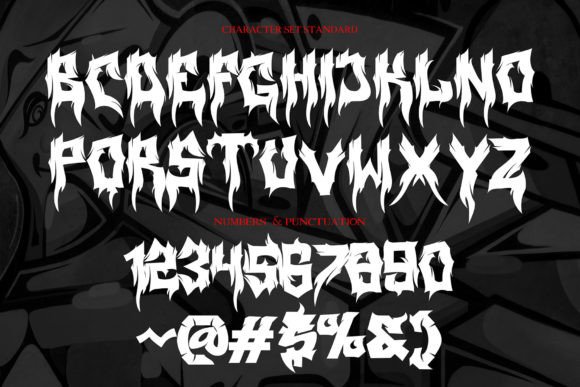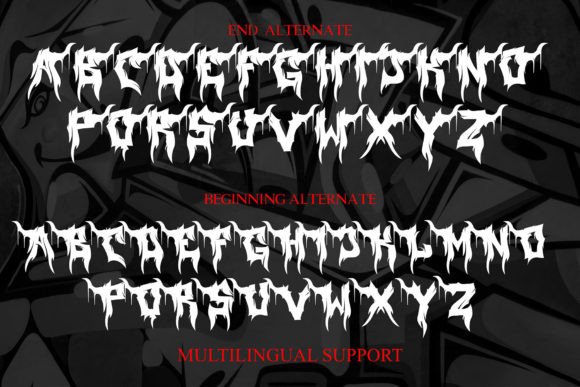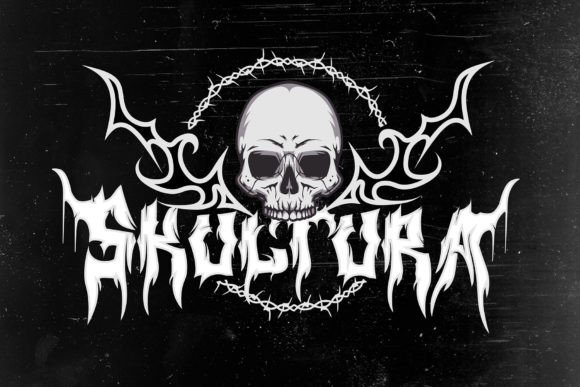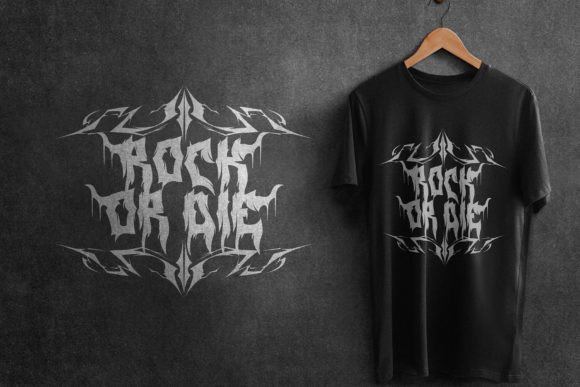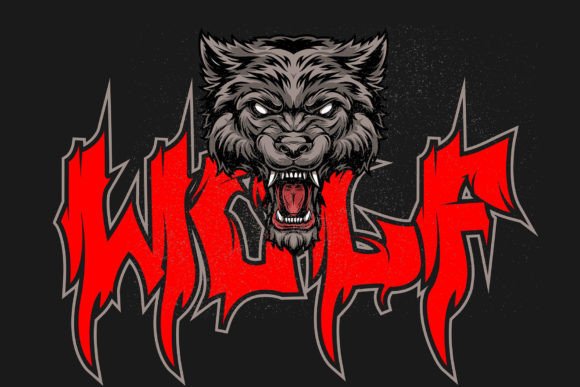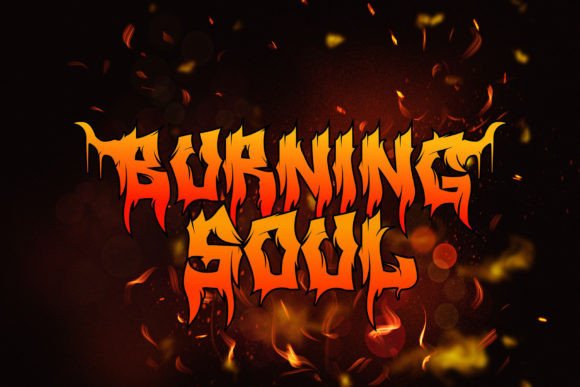
Unleash the Fury: Introducing Foxes Storm Font
Are you a designer or crafter looking for a font that embodies the dark and edgy spirit of black metal music? Look no further than Foxes Storm Font, a menacing and scary typeface that’s perfect for a wide range of dark and horror-themed design projects. In this article, we’ll dive into the features and benefits of Foxes Storm Font, and explore how it can elevate your designs to new heights.
The Perfect Font for Dark and Horror-Themed Designs
Foxes Storm Font is a black metal-themed font that’s designed to evoke the dark, aggressive, and mysterious vibe of the genre. With its jagged edges, sharp points, and bold lines, this font is sure to make a statement in any design project. Whether you’re designing a metal band’s album cover, a horror movie poster or logo, or any other project that requires a dark and edgy aesthetic, Foxes Storm Font is the perfect choice.
Key Features of Foxes Storm Font
- Menacing and Scary Look: Foxes Storm Font has a bold and intimidating appearance that’s sure to grab attention.
- PUA Encoded: The font is PUA encoded, making it easy to access all delightful glyphs and swashes.
- Wide Range of Uses: Foxes Storm Font is perfect for a variety of design projects, including album covers, movie posters, logos, and more.
- Dark and Edgy Aesthetic: The font’s design is inspired by the dark and aggressive spirit of black metal music.
Benefits of Using Foxes Storm Font
So why choose Foxes Storm Font for your design projects? Here are just a few benefits of using this powerful font:
- Adds Instant Impact: Foxes Storm Font’s bold and menacing design adds instant impact to any project, grabbing attention and making a lasting impression.
- Enhances Dark and Edgy Themes: The font’s dark and edgy aesthetic perfectly complements dark and horror-themed designs, adding depth and atmosphere to your projects.
- Easy to Use: Foxes Storm Font is PUA encoded, making it easy to access all glyphs and swashes, even for designers who are new to font editing software.
- Versatile: Foxes Storm Font can be used in a wide range of design projects, from album covers and movie posters to logos and branding materials.
Design Ideas Using Foxes Storm Font
So what can you create with Foxes Storm Font? Here are just a few design ideas to get you started:
- Metal Band Album Covers: Use Foxes Storm Font to create bold and eye-catching album covers for metal bands.
- Horror Movie Posters: Add a touch of horror and suspense to your movie posters with Foxes Storm Font.
- Dark and Edgy Logos: Use Foxes Storm Font to create bold and intimidating logos for businesses and brands that want to make a statement.
- Typography-Based Art: Experiment with Foxes Storm Font to create stunning typography-based art pieces that showcase the font’s bold and menacing design.
In conclusion, Foxes Storm Font is a powerful and menacing font that’s perfect for designers and crafters who want to add a touch of dark and edgy style to their projects. With its PUA encoded design and wide range of uses, Foxes Storm Font is the perfect choice for any design project that requires a bold and intimidating aesthetic. So why wait? Download Foxes Storm Font today and unleash the fury in your designs!